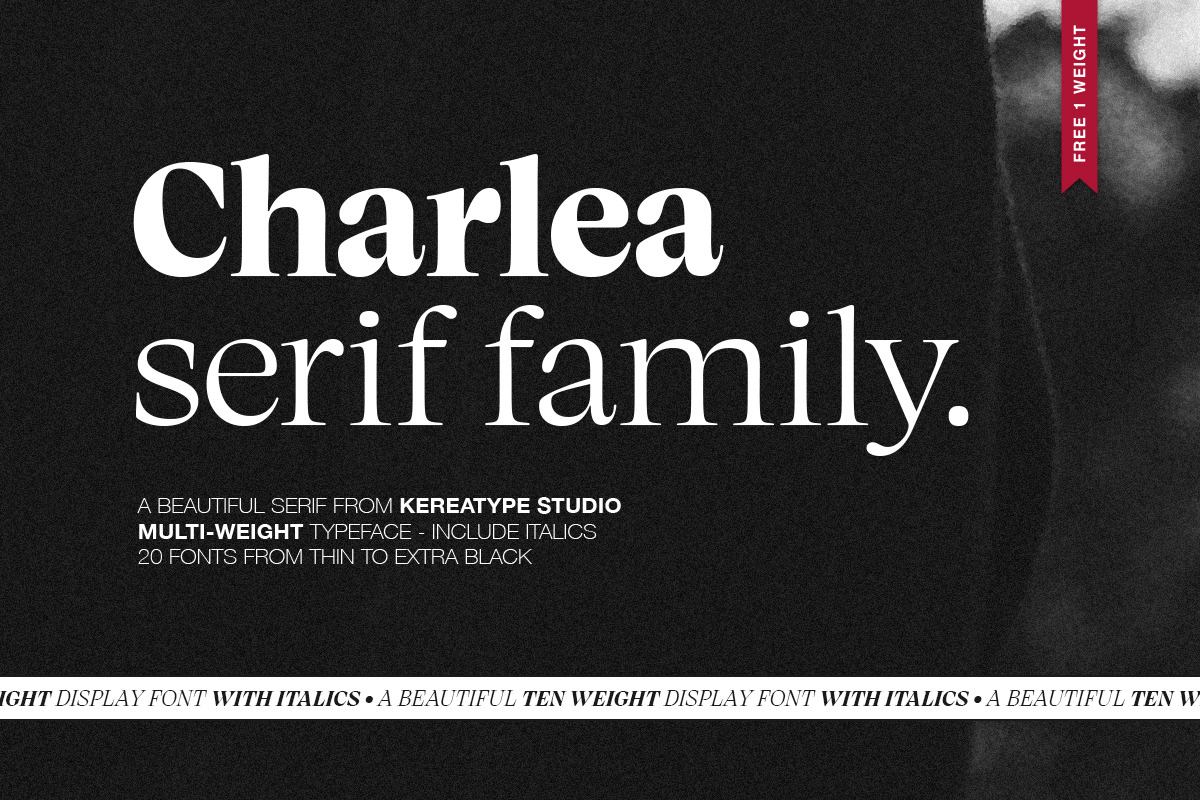
Charlea Serif Family (20 Fonts) Free Download
The Charlea Serif Family (20 Fonts) Free Download is an extensive font collection that offers 20 unique and versatile serif fonts, perfect for a wide range of design projects. With various weights and styles, this font family is ideal for creating sophisticated logos, editorial designs, websites, branding materials, and more. The Charlea serif family provides a balanced mix of classic elegance and modern appeal, making it suitable for both professional and creative uses. Whether you're designing for business, fashion, publishing, or any high-end project, this font collection will elevate your typography with style and clarity. Please note, for commercial use, a license purchase is required. However, you can easily download the Charlea Serif Family (20 Fonts) Free Download for free for personal use and explore its versatility. Download the Charlea Serif Family (20 Fonts) Free Download today and enhance your designs with a polished, timeless look.